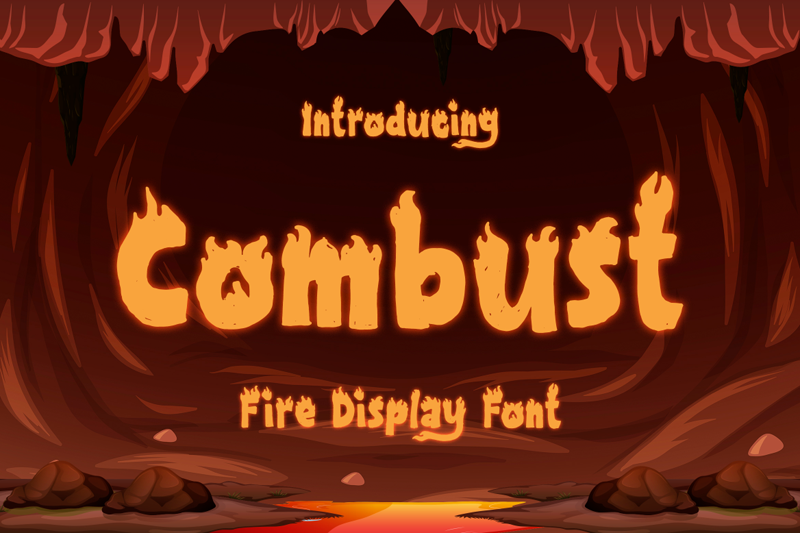
Font name: | Combust |
Categories | Fancy, Fire, Ice |
Author: | Type Factory |
Combust is a modern playful display font with fire. The font is thick so it can still be read even if there is a burning fire, suitable for various purposes, poster design, for video game or movie titles, or promotions on social media. Full Version Download Here : https://typefactory.co/product/combust-playful-fire-display/ https://www.creativefabrica.com/product/combust/ref/501262/ |